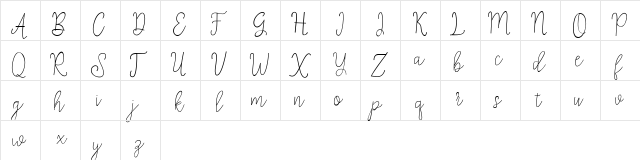
sweetness Regular Font Preview
sweetness Regular
sweetness Regular Font Details
Design Context for sweetness Typeface
sweetness offers clean, dependable letterforms without strong stylistic allegiance, making it a practical choice for designers who need flexibility.
Pro Tip: Use sweetness in both headline and body roles to test its range before committing to a single application.